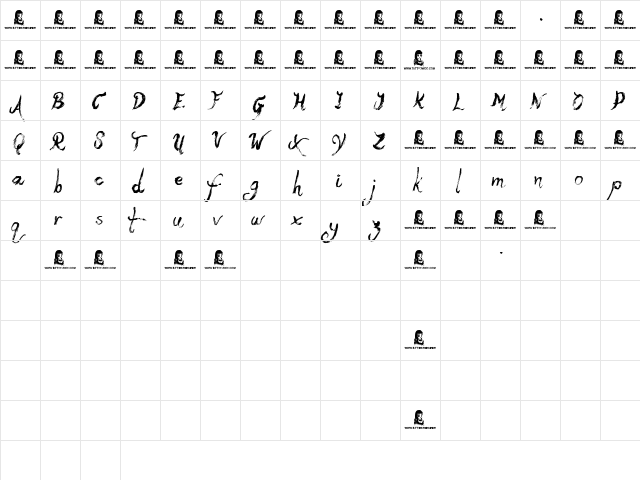
Yeti Fety Regular
| Foundry | Jonathan S. Harris |
| Designer | Jonathan Stephen Harris |
Design Context for Yeti Fety Typeface
Yeti Fety is a composed and adaptable typeface that performs quietly and consistently across a wide range of design contexts.